2 Google Fonts Similar to Circular
Circular is a sans-serif font created by Laurenz Brunner in 2013. It is based off geometric forms that are warm and friendly. It comes in 4 different weights.
It is an font that has been gaining a lot of traction in the past couple of years.
After doing some digging around Google Fonts, I was able to find two solid looking alternatives.
What Google Fonts are Similar to Circular?
The most similar fonts to Circular from Google Fonts are:
- Nunito
- Montserrat
Either one of these fonts would make for a great alternative.
Real briefly, I will talk about the similarities and the differences between each one.
Nunito
Nunito is the most similar looking font to Circular from Google Fonts.
Nunito is a sans-serif font that was created for display typography.
I would argue that it is a 95% match for the lowercase letters and a 85% match for it's uppercase letters.
The only real noticeable difference in the lowercase is the "c". It is more closed off in Circular than it is in Nunito.
In the uppercase letters that main difference is in the "J", "Q", and the "U".
I made some images for you to use to compare for yourself.
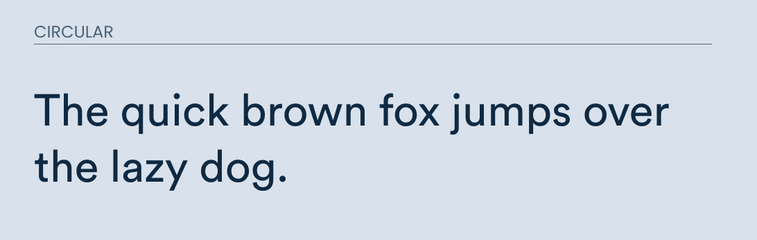
Montserrat
Montserrat is also another similar looking font to Circular. It also is a very close match in both lowercase and uppercase.
If you look closely enough, you will find the main differences in lower case is the "y".
Uppercase also has some differences. The major ones are in the "J", "G", "Q" and "R".
So Montserrat probably wouldn't be the best bet if you are going to be using a lot of uppercase letters.
Take a look for yourself.
Final thoughts
Nunito is going to be the closest match out of any of the other fonts on Google Fonts. Montserrat is a close runner up. Neither is going to be a perfect match, but if your project is on a budget either one will do.